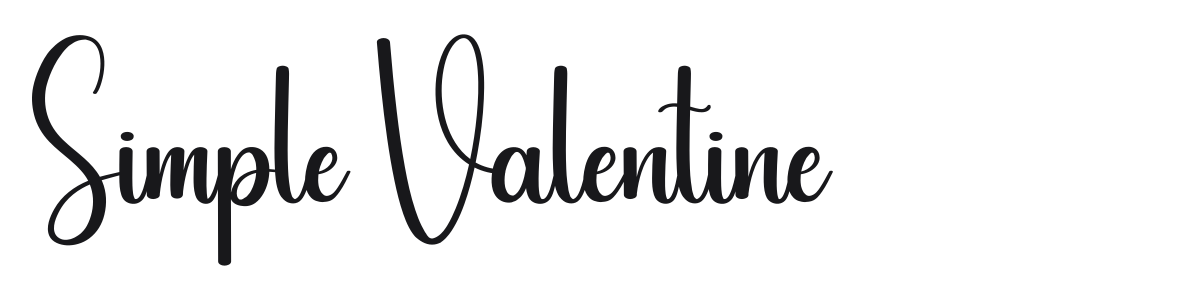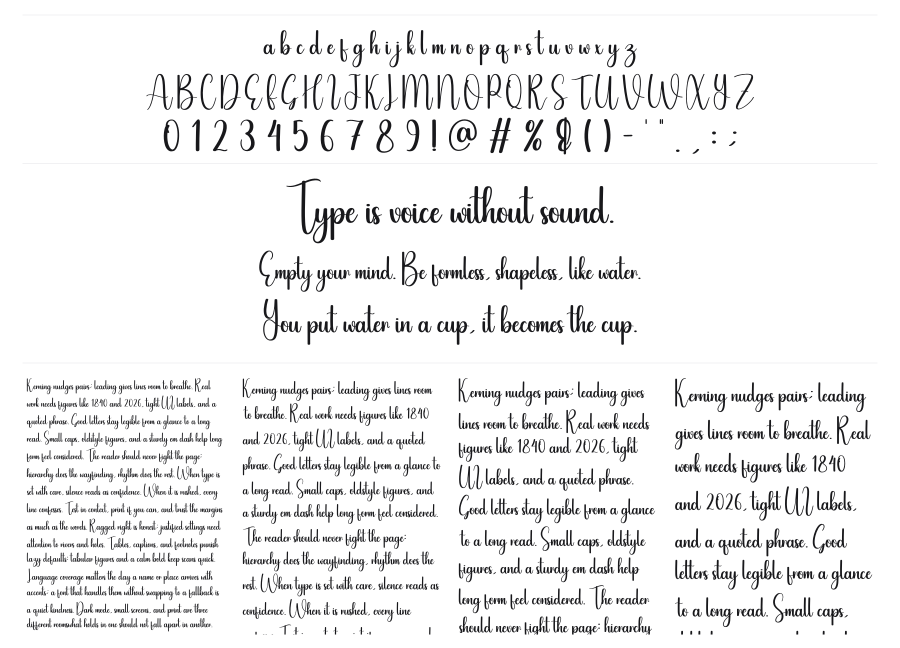
Simple Valentine
Simple Valentine is a flowing casual script with a lively bouncing baseline and the kind of natural rhythm that feels genuinely hand-lettered rather than mechanical. High stroke contrast between thick downstrokes and fine hairlines gives it elegance without stiffness. It suits wedding stationery, social media graphics, and any project that needs a warm, personal touch.